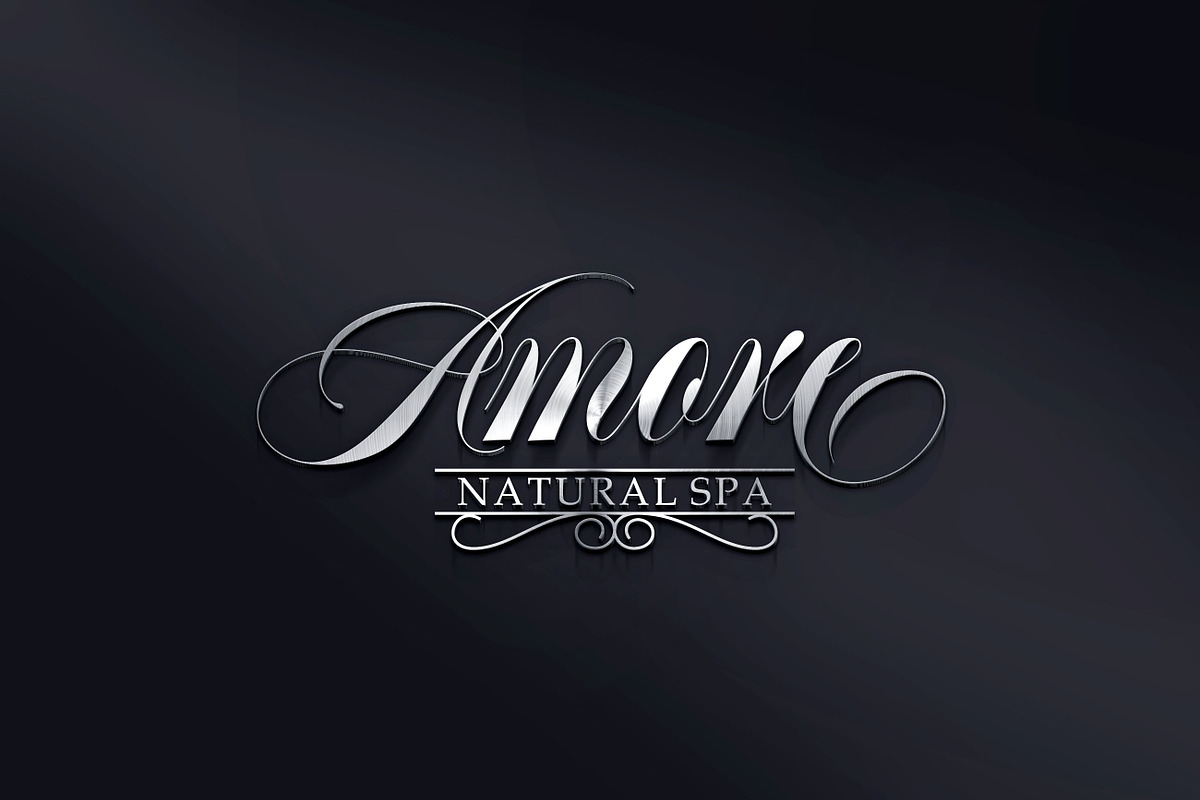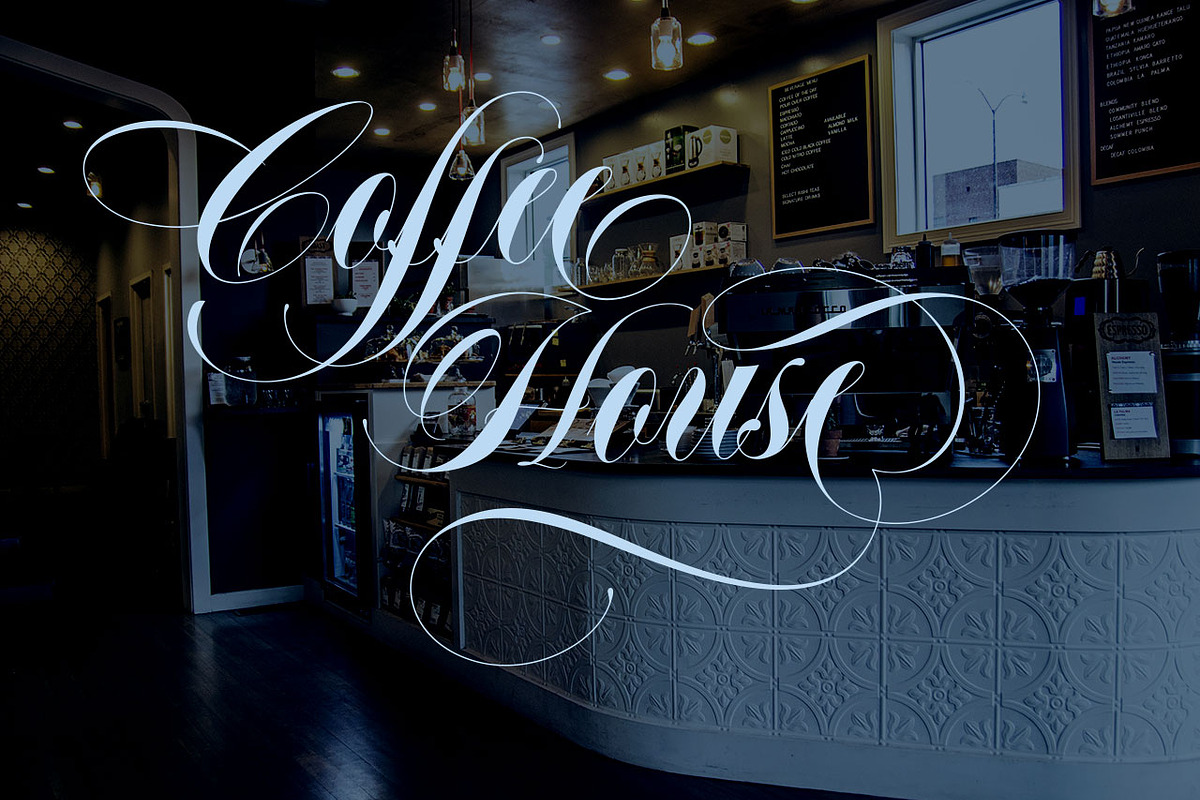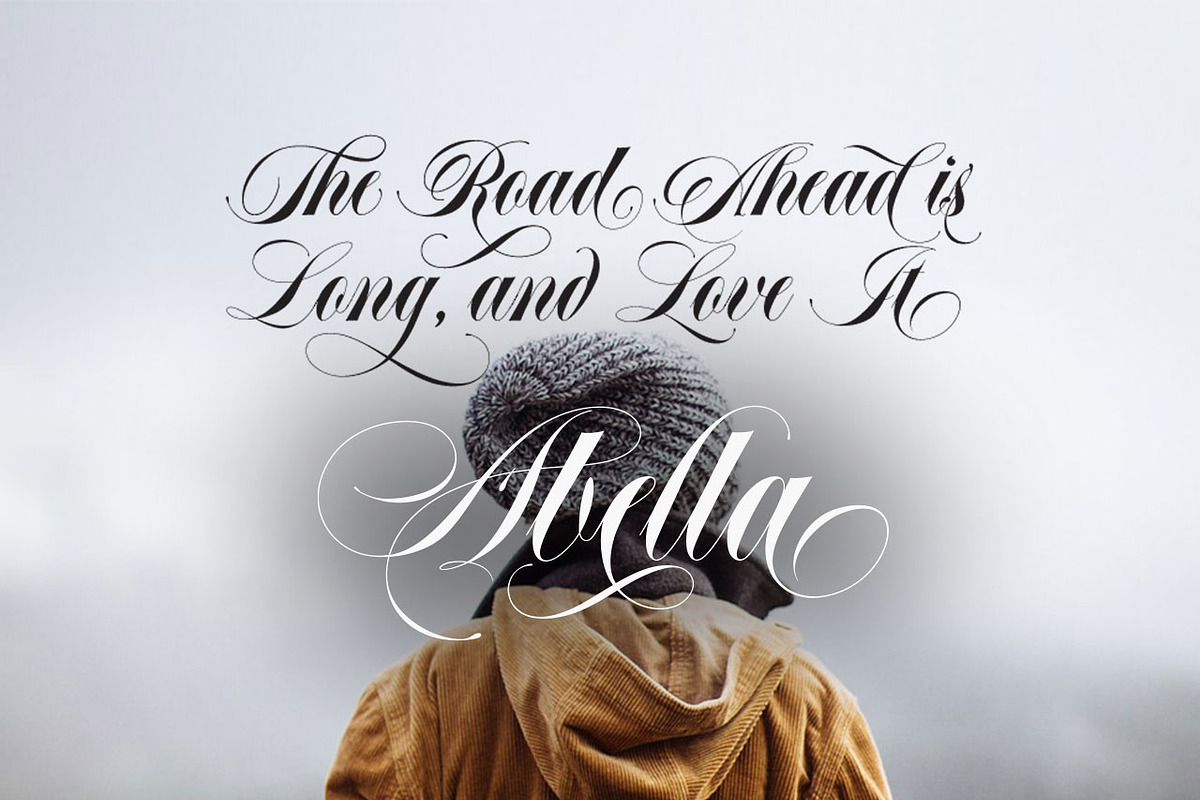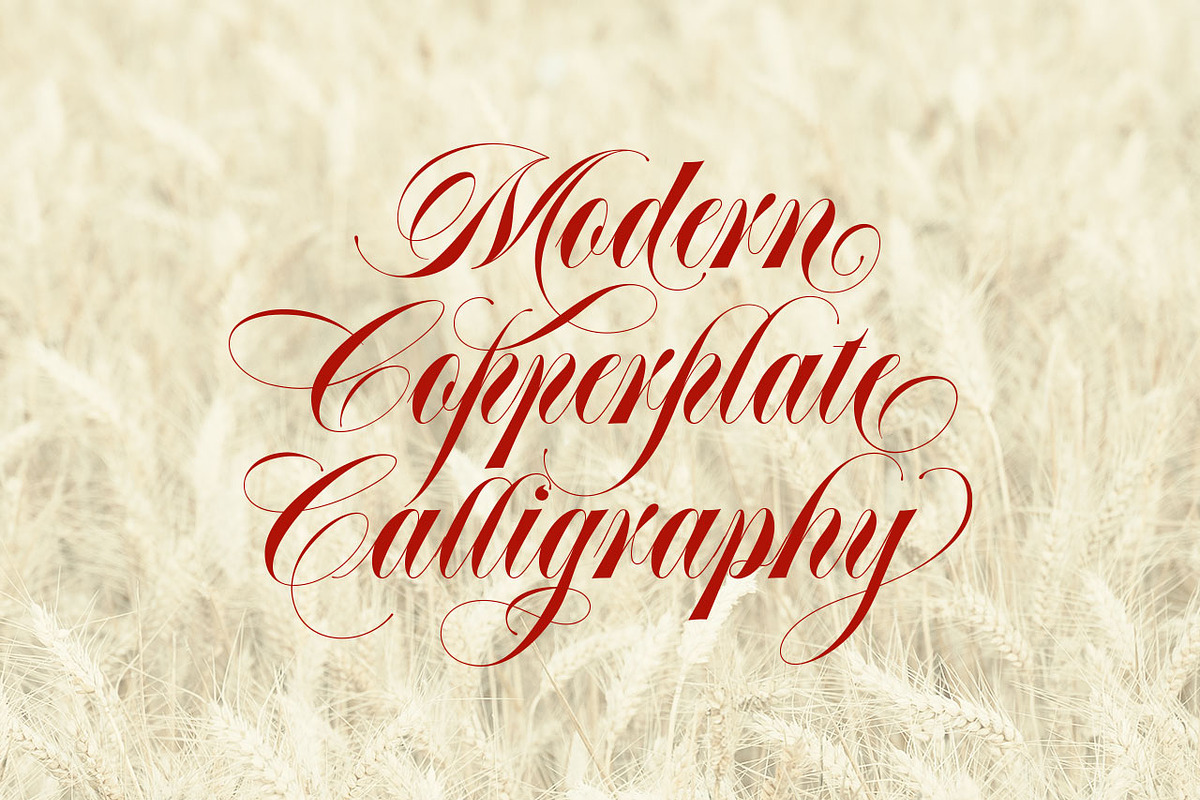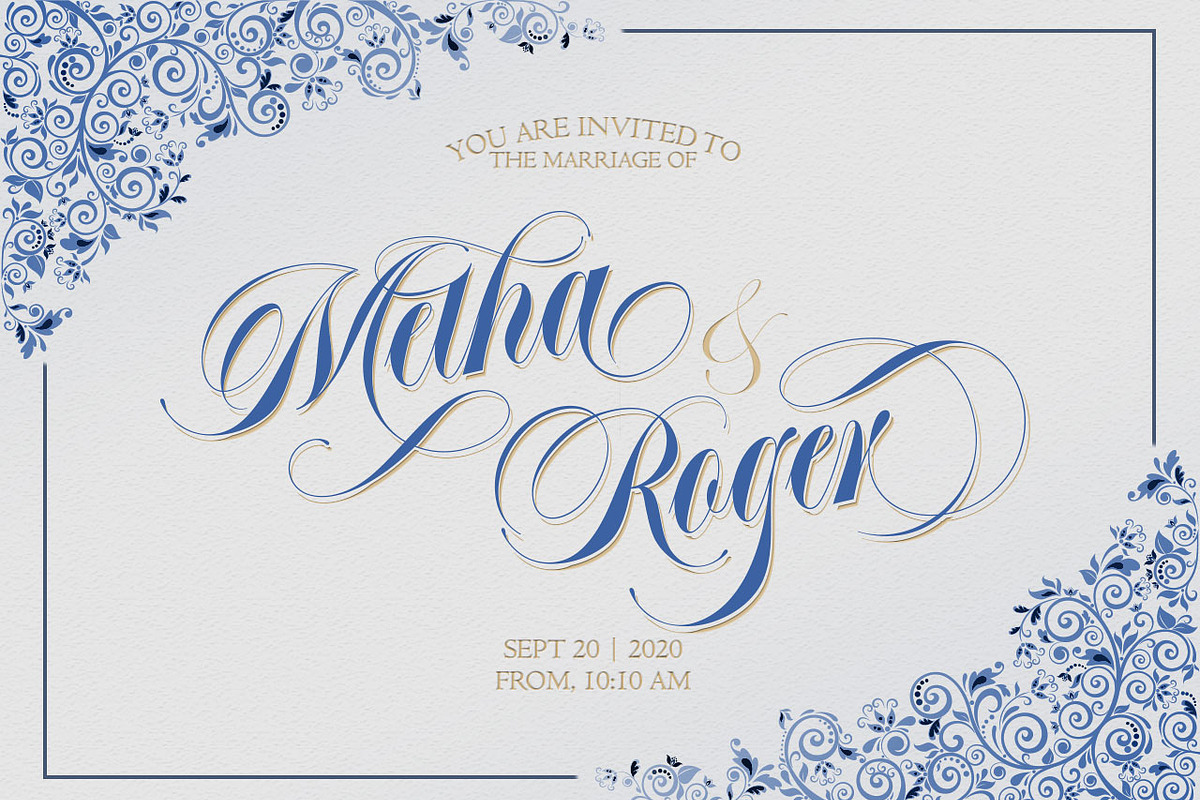
Abella Script
Abella Script, is a calligraphy manuscript, handwritten modern and clasik, so soft, perfect for your next design, such as logos, printed quotes, invitations, cards, product packaging, headers and anything else about your imagination.
Abella Script allows you to create custom dynamic text. you can access by turning on; Stylistic Alternates, Swash, as well as ligatures in Photoshop, Adobe Illustrator, Adobe InDesign or through a panel of glyphs such as Adobe Illustrator, Photoshop CC, Let's switch from the reguler character into character alternative to get the text with the layout of your dreams.
Abella Script also includes glyphs, punctuation, numbers, and multilingual.